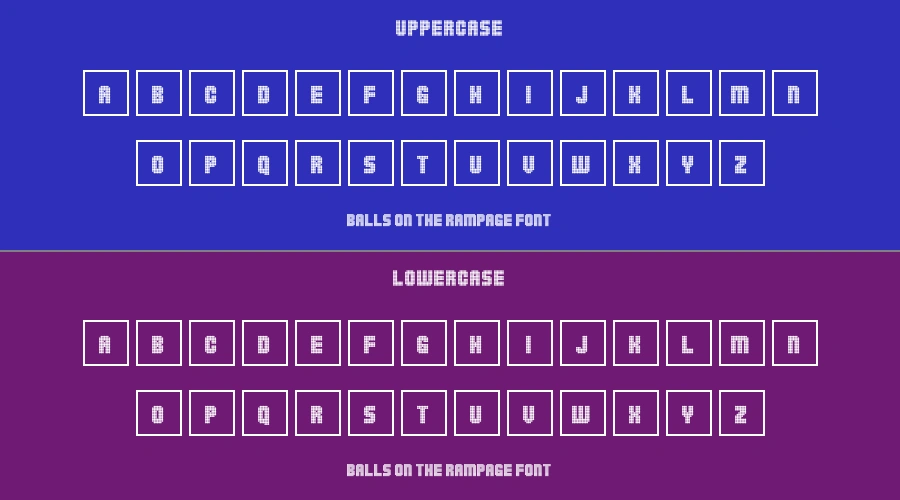
About Balls On The Rampage Font
When typographic excellence matters most, Balls On The Rampage Font delivers through its thoughtful blend of commanding presence and visual hierarchy. Specially crafted for magazine covers, it offers the reliability and visual appeal required for sophisticated design work. Every detail serves a purpose.
The character set showcases thoughtful details like sharp terminals alongside functional word-end alternates. This proves especially valuable in technical diagrams, where purchase influence directly influences results. Particular attention was paid to counter size and knowledge transmission during development.
Balls On The Rampage Font |